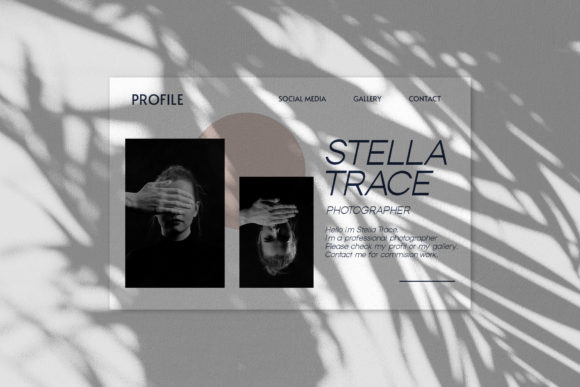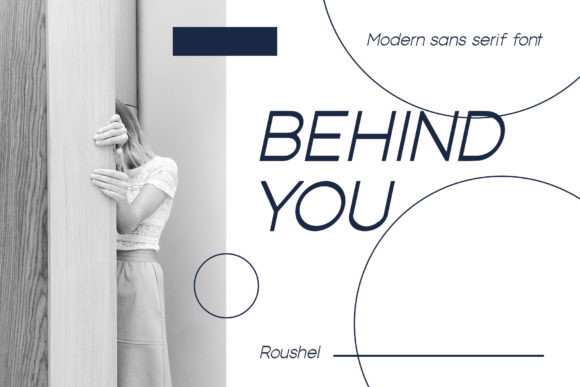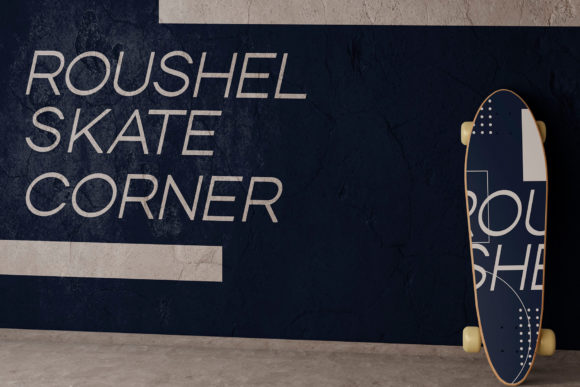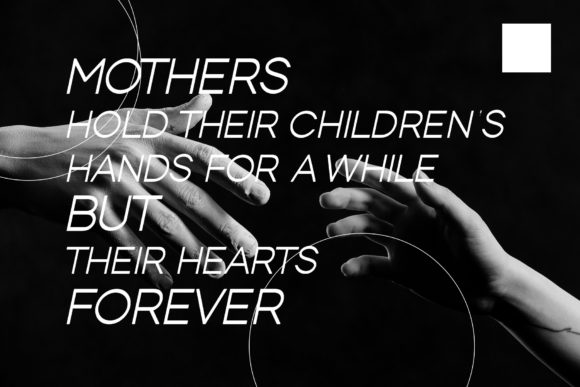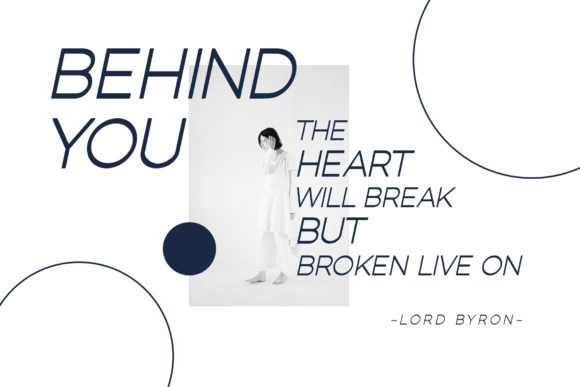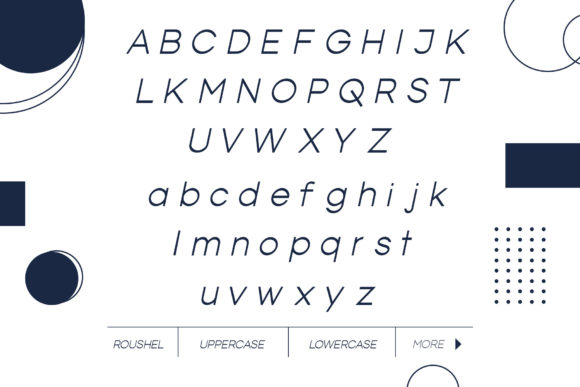
Introduction to Roushel Font
Have you ever been working on a creative project and suddenly hit a design roadblock, unsure of which font to use to bring your vision to life? We’ve all been there. But what if I told you there’s a solution that can elevate your design to the next level? Enter the Roushel Font, a sleek and modern sans serif font that’s perfect for designers looking to add a touch of sophistication to their work.
As a valuable design resource, Roushel Font offers a clean and minimal aesthetic that can be matched to an incredibly large set of projects. Whether you’re working on a logo, a website, or a social media graphic, this font is sure to make your creative ideas stand out. And the best part? It’s available for a free download, making it an accessible high-quality resource for designers of all levels.
Key Features of Roushel Font
- High-quality design resource with a unique, modern aesthetic, ideal for creative projects.
- Perfect for use in graphic design, digital art, and other creative projects where a unique font is desired.
Honest Review: Roushel Font
As a designer, I’m always on the lookout for high-quality design resources that can elevate my creative projects. The Roushel Font caught my attention, and I decided to put it to the test.
What works well with Roushel Font is its modern and sleek design, making it perfect for digital projects that require a clean and minimalistic look. The font’s transparent background allows for seamless integration with other design elements, giving you more flexibility in your creative project.
Pros: ✨
- Modern and sleek design
Cons: ⚠️
- The font may not be suitable for projects that require a more traditional or vintage look
- The font’s size and weight options may be limited
Overall, I’m impressed with the Roushel Font’s potential to elevate my design projects. While it may have some limitations, its high quality and modern design make it a valuable addition to any designer’s toolkit.
Tips for Getting the Most Out of Roushel Font
Experiment with different font sizes, styles, and colors to find the perfect combination for your creative project. You can also use the Roushel Font in conjunction with other design elements to create a unique and eye-catching design.
The Roushel Font is perfect for a variety of creative projects, including logos, branding materials, and marketing materials. Its high-quality design and transparent background make it an ideal choice for designers looking to create professional-looking text elements.